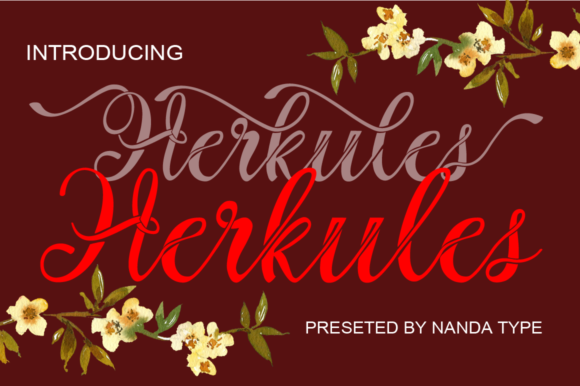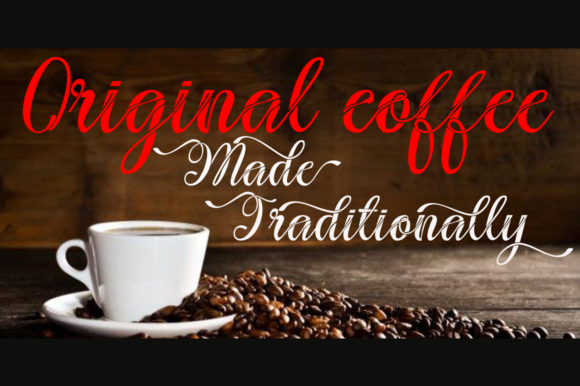
About Herkules Font
Herkules is a beautiful and flowing script font. It looks stunning on wedding invitations, thank you cards, quotes, greeting cards, logos, business cards and every other design which needs a handwritten touch.